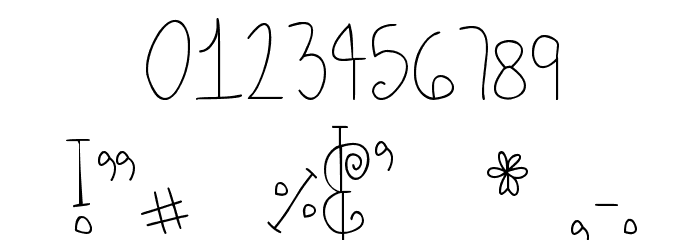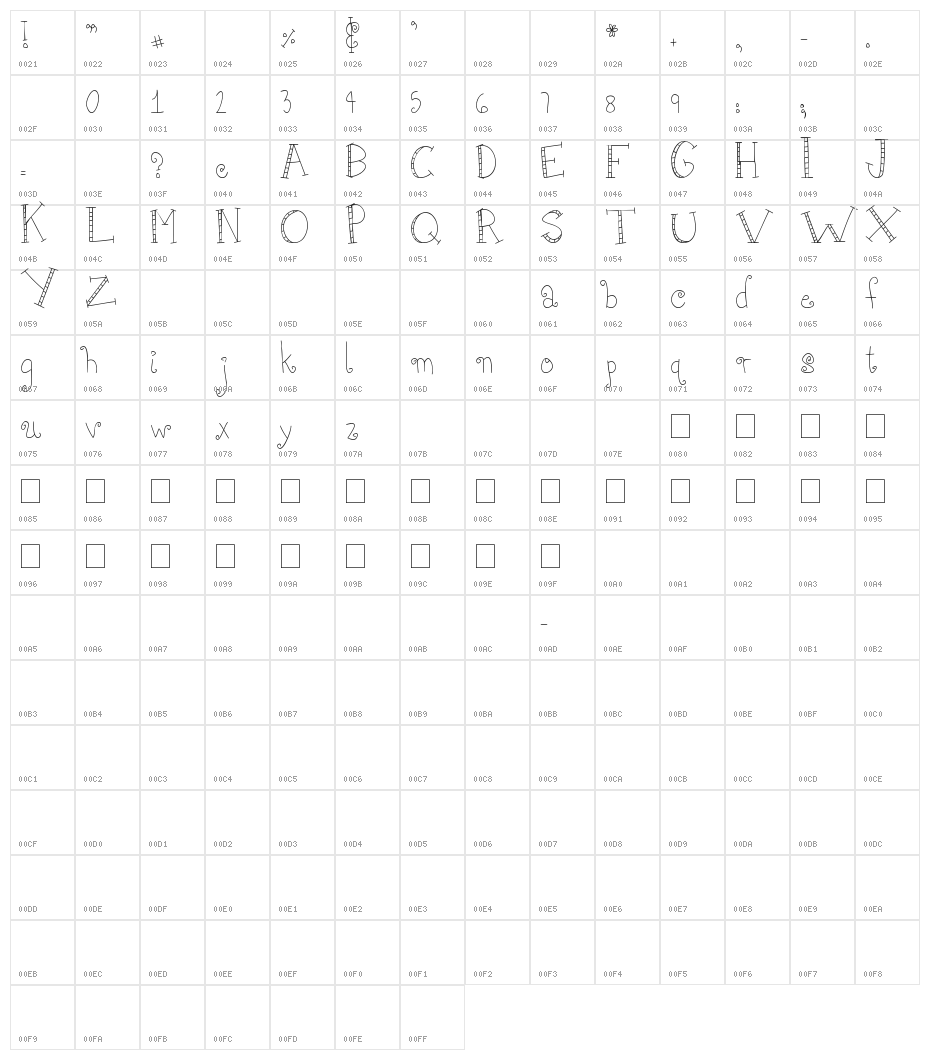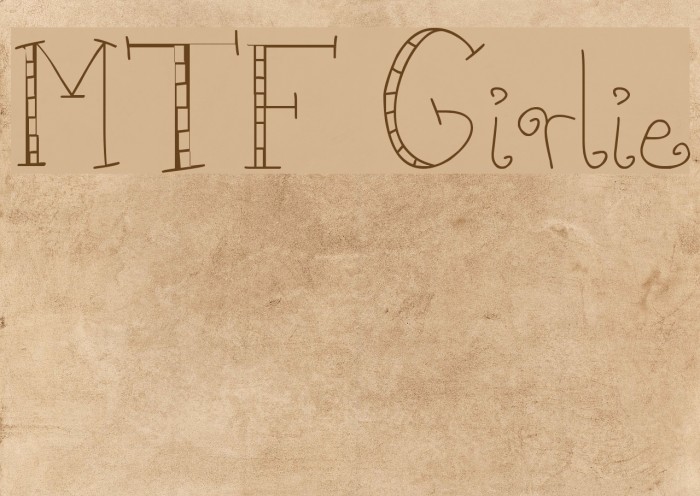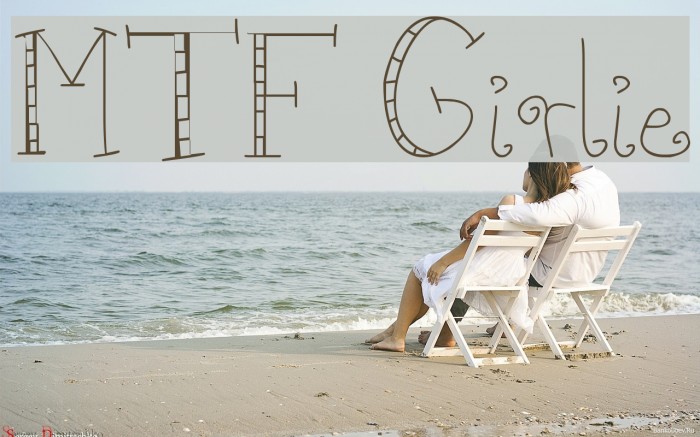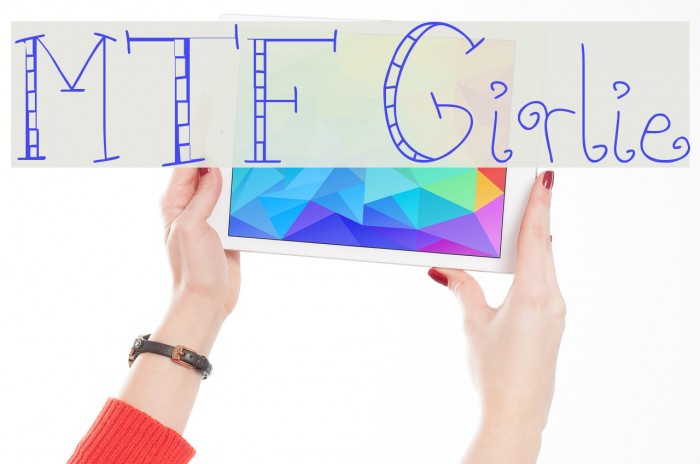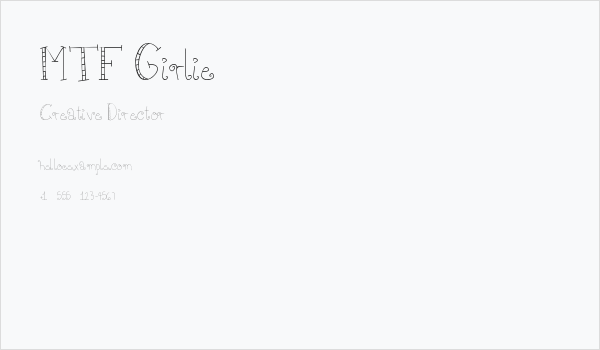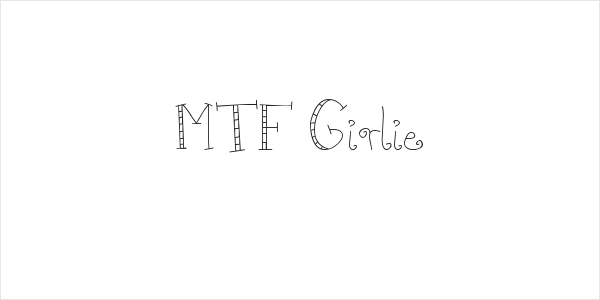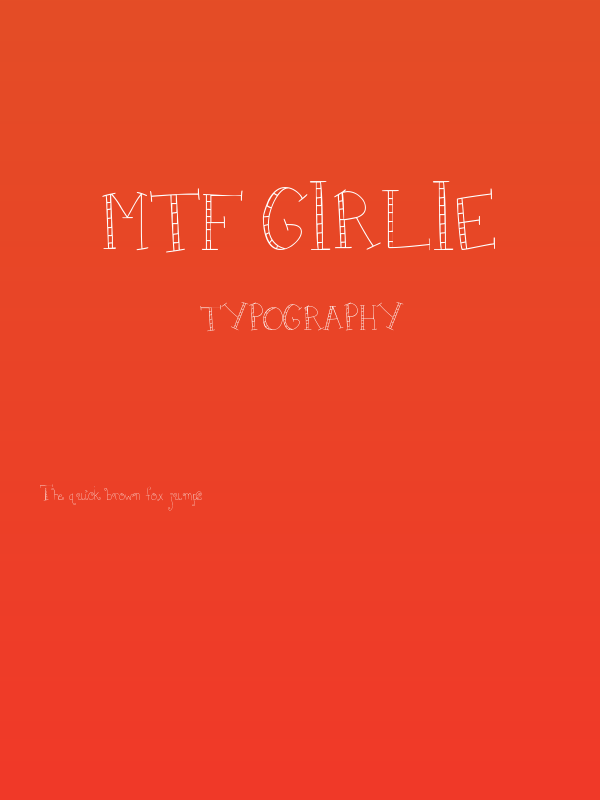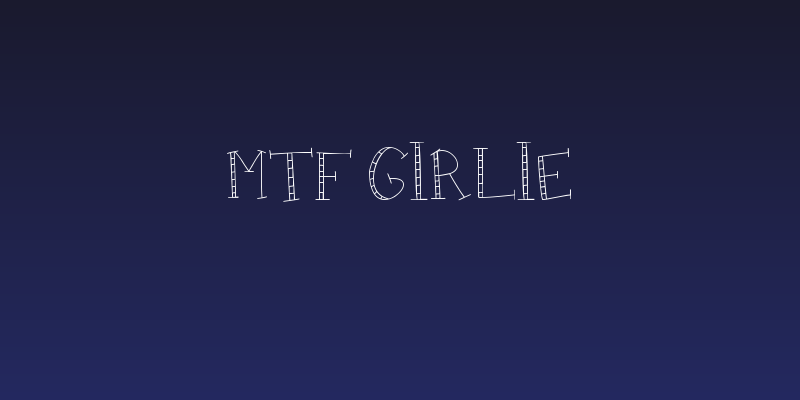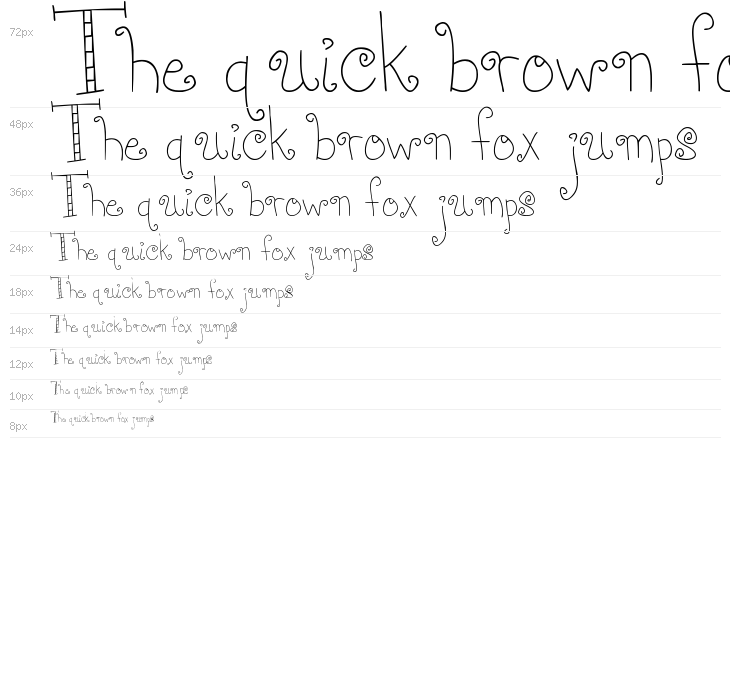
MTF Girlie Font
MTF Girlie Description
This whimsical and playful font features a unique blend of decorative elements and a hand-drawn aesthetic. The uppercase letters are adorned with a striped pattern, adding a touch of creativity and fun. The lowercase letters exhibit a curly, swirly design, giving them a lively and animated appearance. The numerals and special characters maintain the same playful style, ensuring consistency throughout. This font is perfect for projects that require a lighthearted and imaginative touch, such as children's books, greeting cards, or playful branding. Its distinctive style makes it stand out, capturing attention with its charming and quirky personality.
Overall StylePlayful, Whimsical
Use CaseHeadlines, Logos, Creative projects
Proposed ProjectsIdeal for children's books, playful branding, greeting cards, and creative invitations.